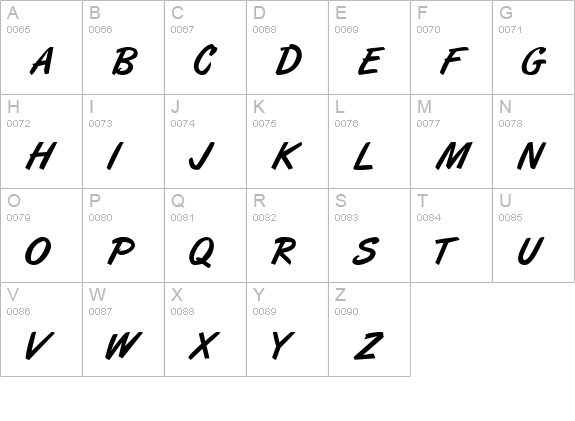
ArtBrush Medium is a balanced, medium-weight variant in the ArtBrush typeface family \xE2\x80\x94 well suited to sub-headlines, navigation, and balanced editorial work.
ArtBrush Medium is a versatile and stylish font that exudes artistic flair and creativity. With its elegant brush strokes and modern aesthetic, this font is perfect for a wide range of design projects, from logos to posters to social media graphics. The medium weight strikes the perfect balance between boldness and sophistication, making it ideal for both headlines and body text. What sets ArtBrush Medium apart is that it is available for free download at FontsMarket.com, allowing designers and creatives to access this high-quality font without any cost. Whether you're a seasoned designer or just starting out, ArtBrush Medium is a must-have addition to your font collection. Elevate your designs with the unique charm and versatility of ArtBrush Medium today.